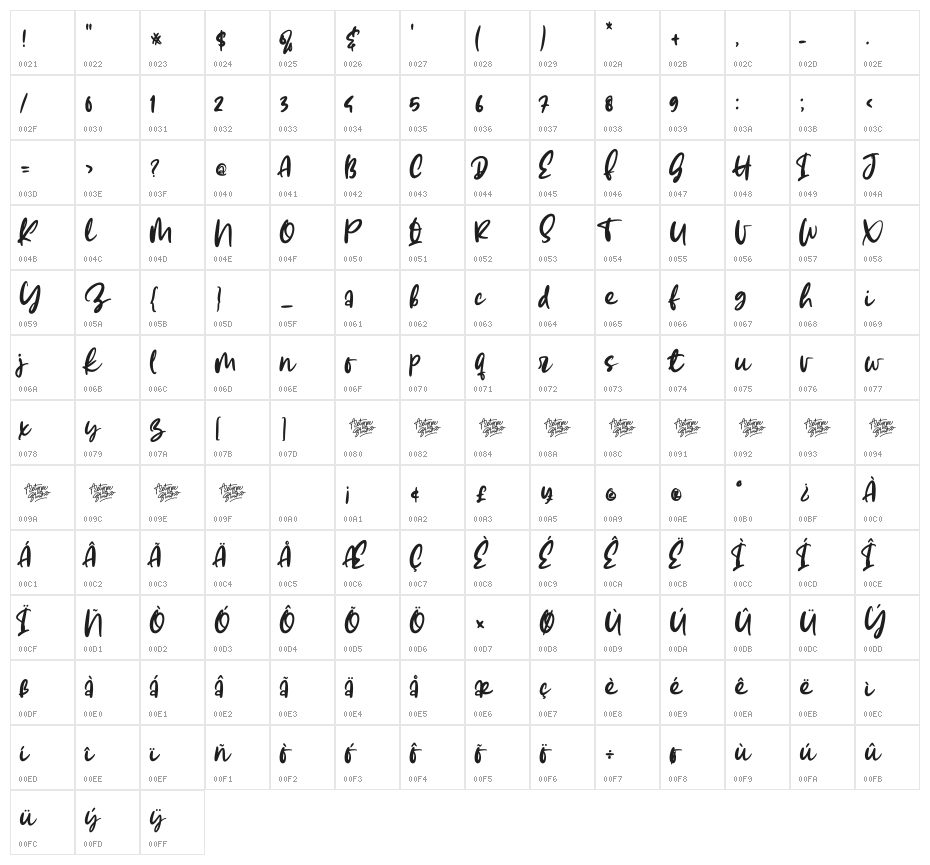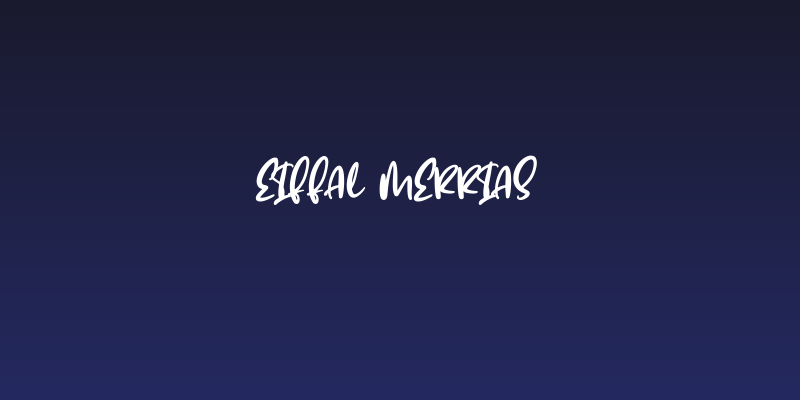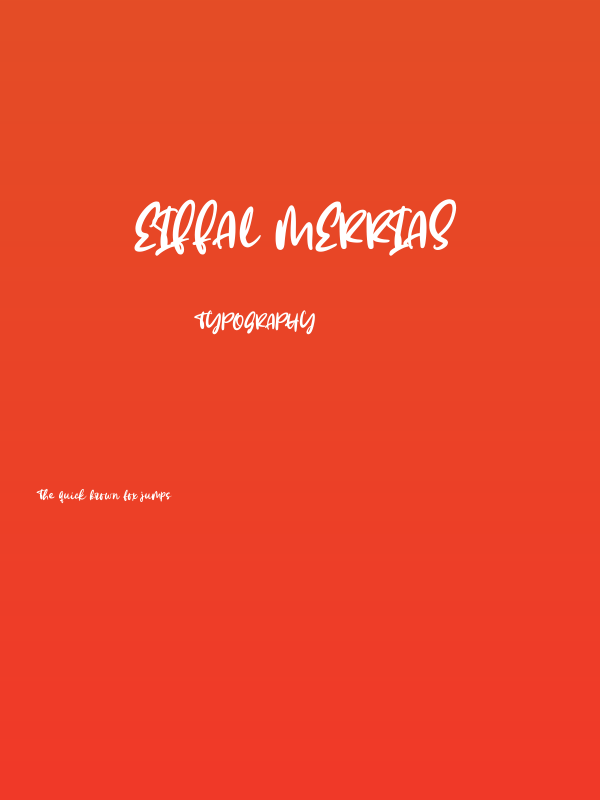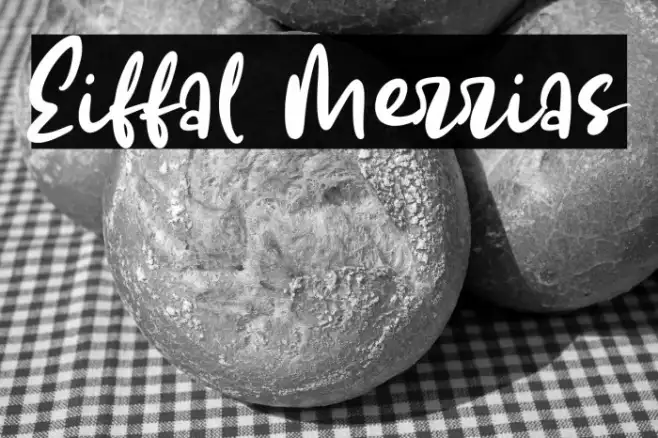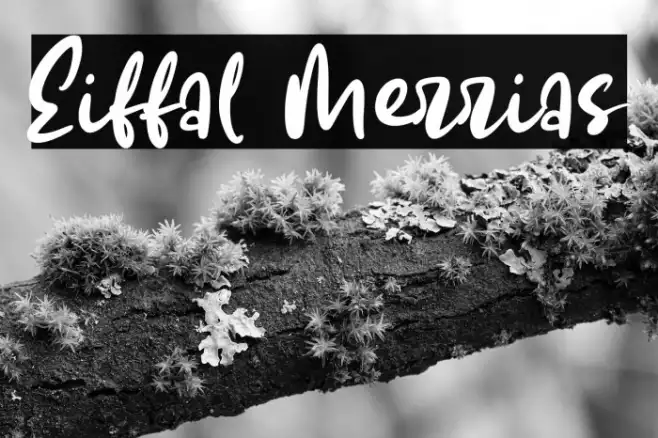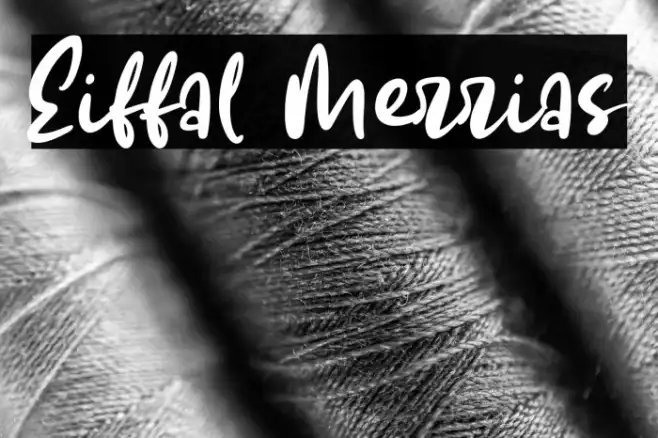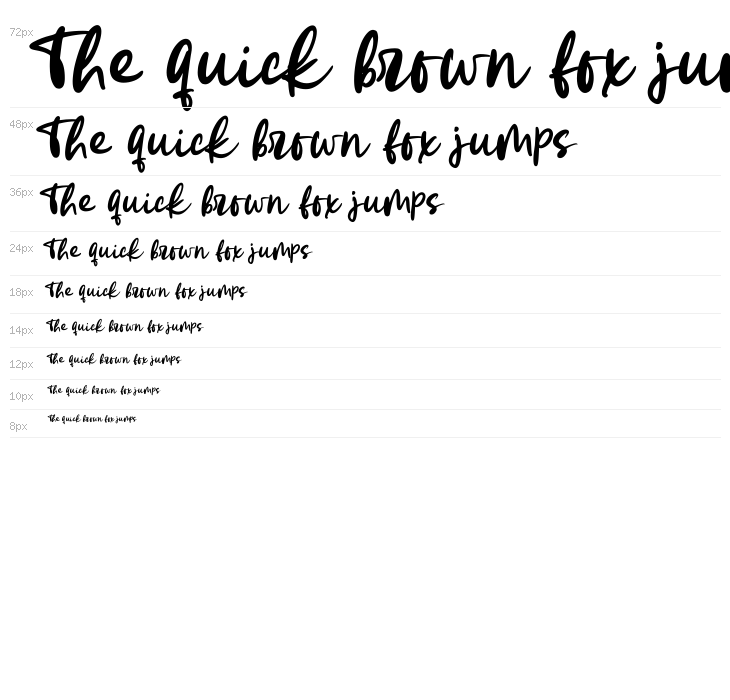
Eiffal Merrias Font
Eiffal Merrias Description
This font features a lively and dynamic handwritten style, characterized by its fluid and organic strokes. The letters are bold and expressive, with a playful yet sophisticated appearance. The uppercase and lowercase letters maintain a consistent flow, while the numerals and special characters complement the overall aesthetic. The font's energetic style makes it suitable for creative and informal projects, adding a personal touch to any design.
| Proposed Projects | Ideal for branding, invitations, greeting cards, and social media graphics. |